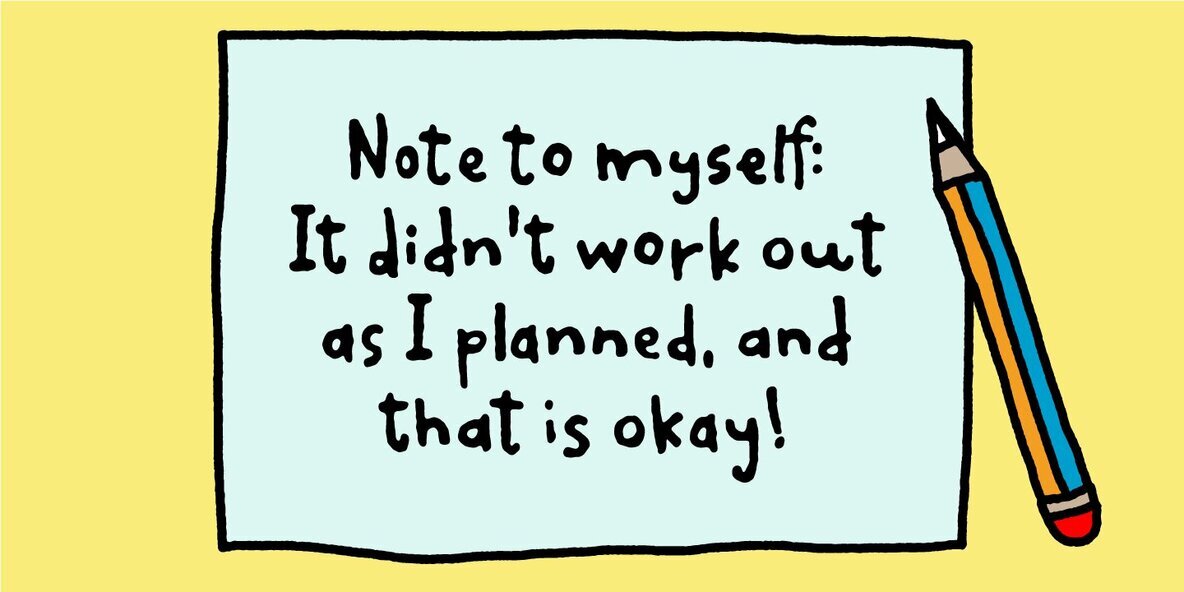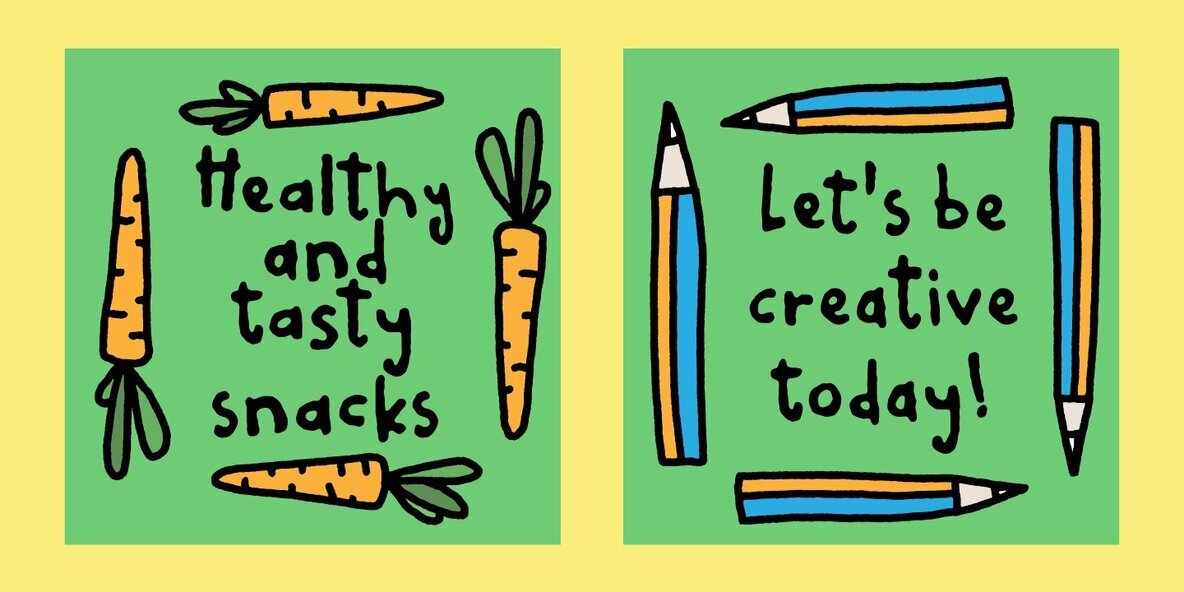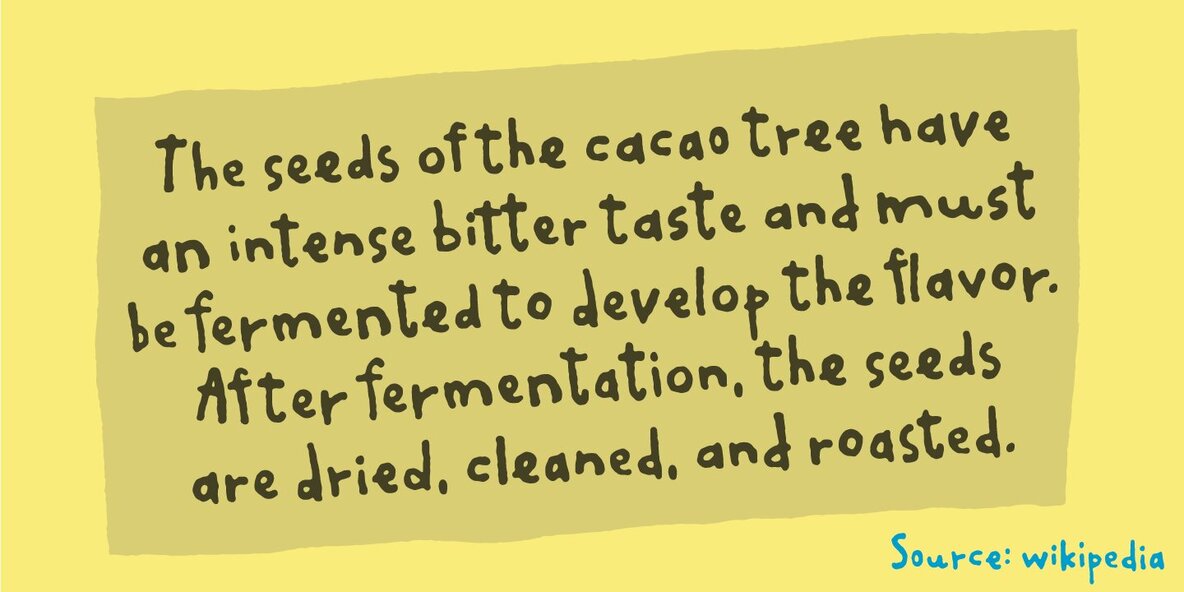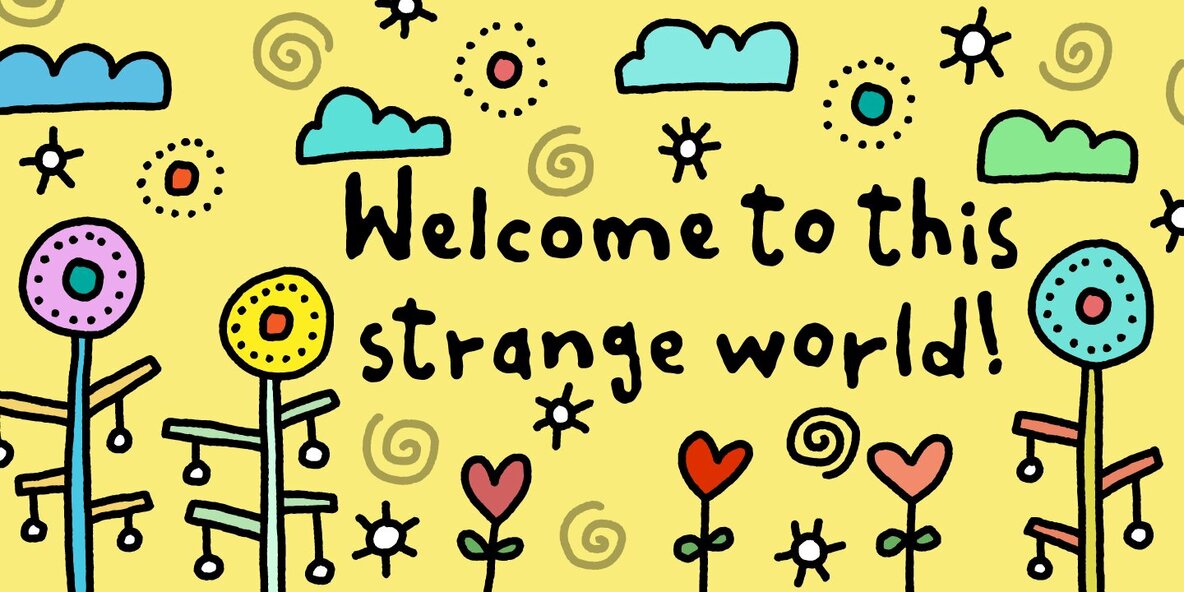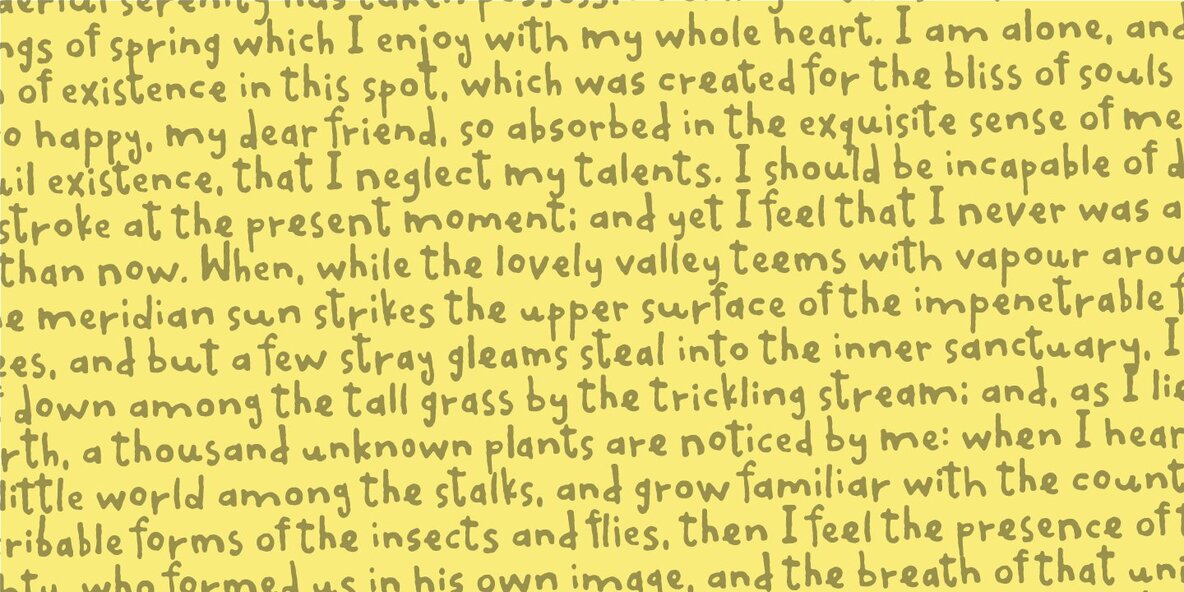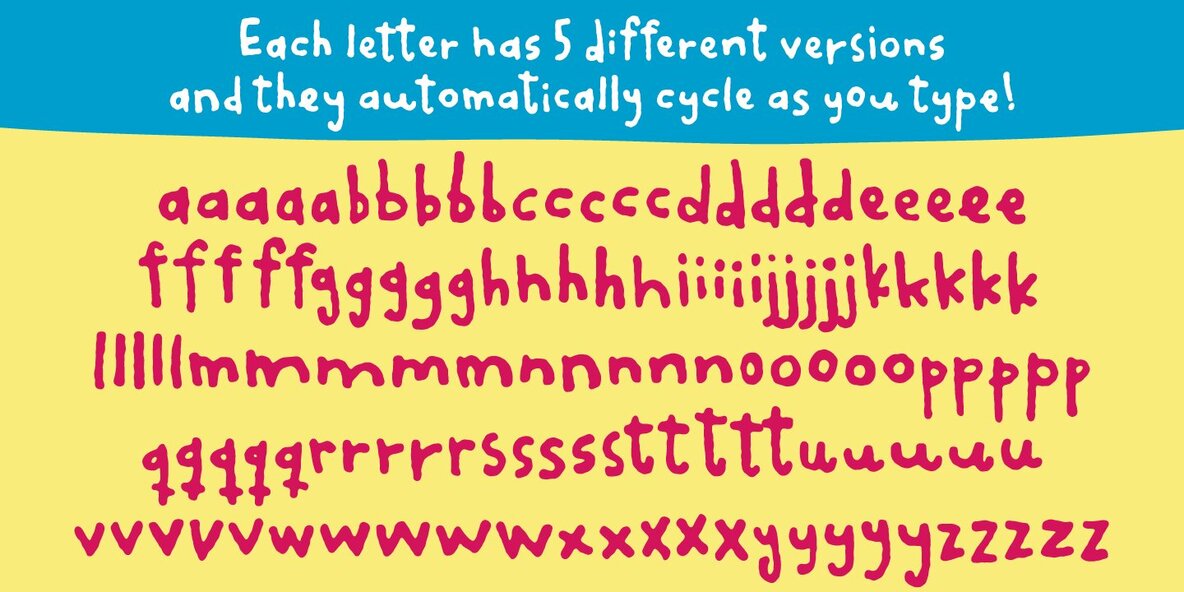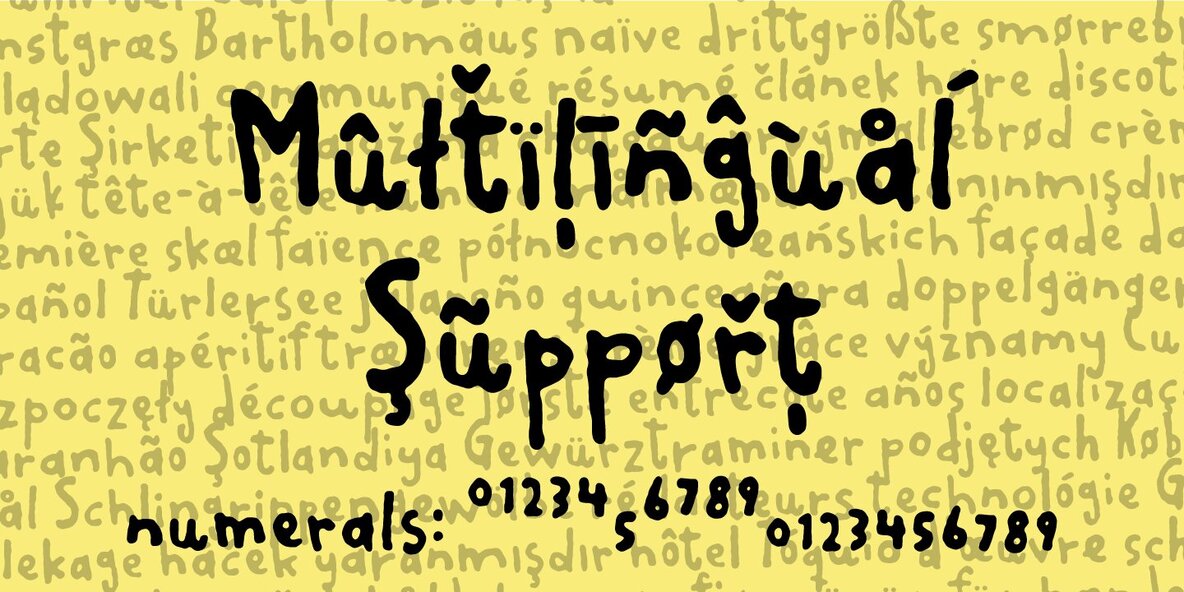
Snacky Plop Font
What excactly is a snacky plop? To be honest, I don't know!!! The name comes out of a wordplay! :) But what I know is that this font is playful, unpredictable and fun to look at and use! I have added 5 different versions of each letter, and they automatically changes as you type!